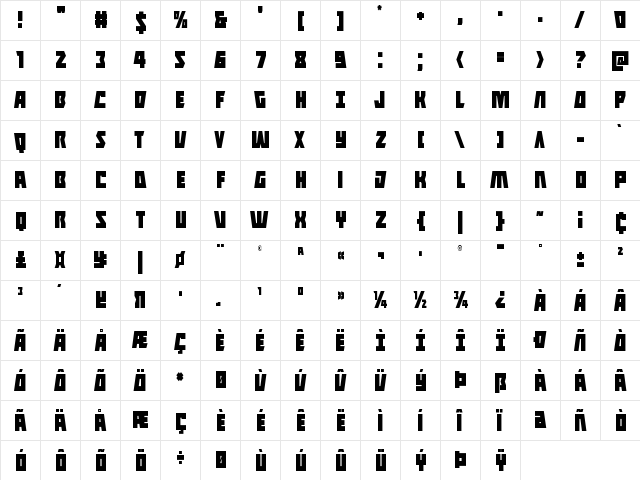
Halfshell Hero Condensed Condensed
Design Context for Halfshell Hero Condensed Typeface
Halfshell Hero Condensed is a composed and adaptable typeface that performs quietly and consistently across a wide range of design contexts. Its narrow stance lets it pack a punch even in space-constrained designs.